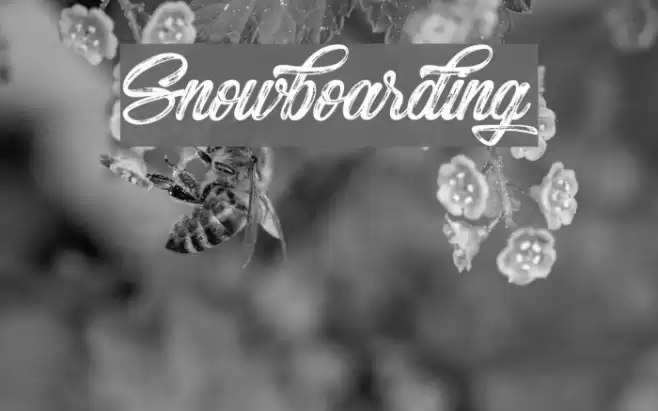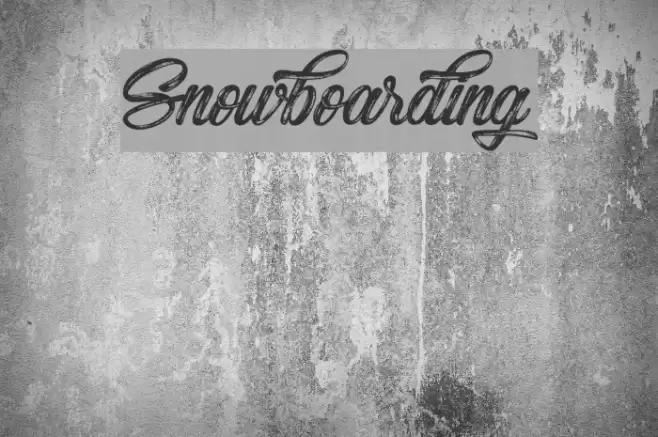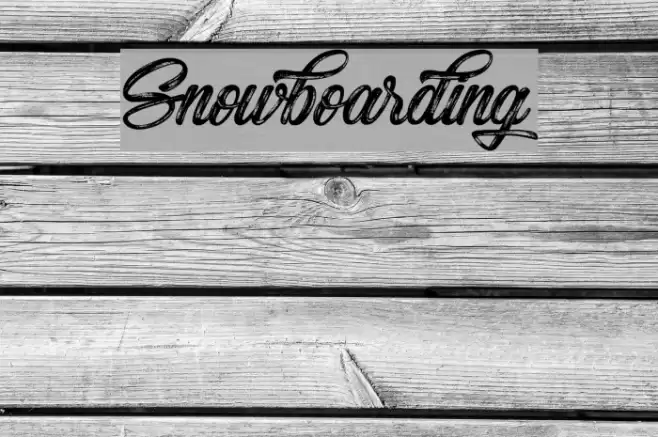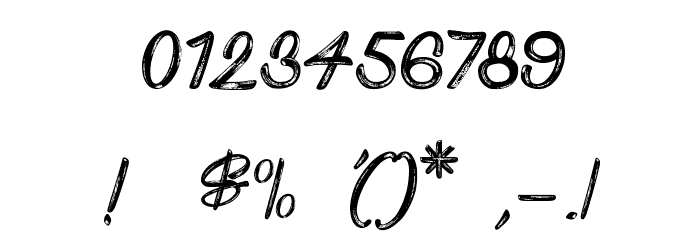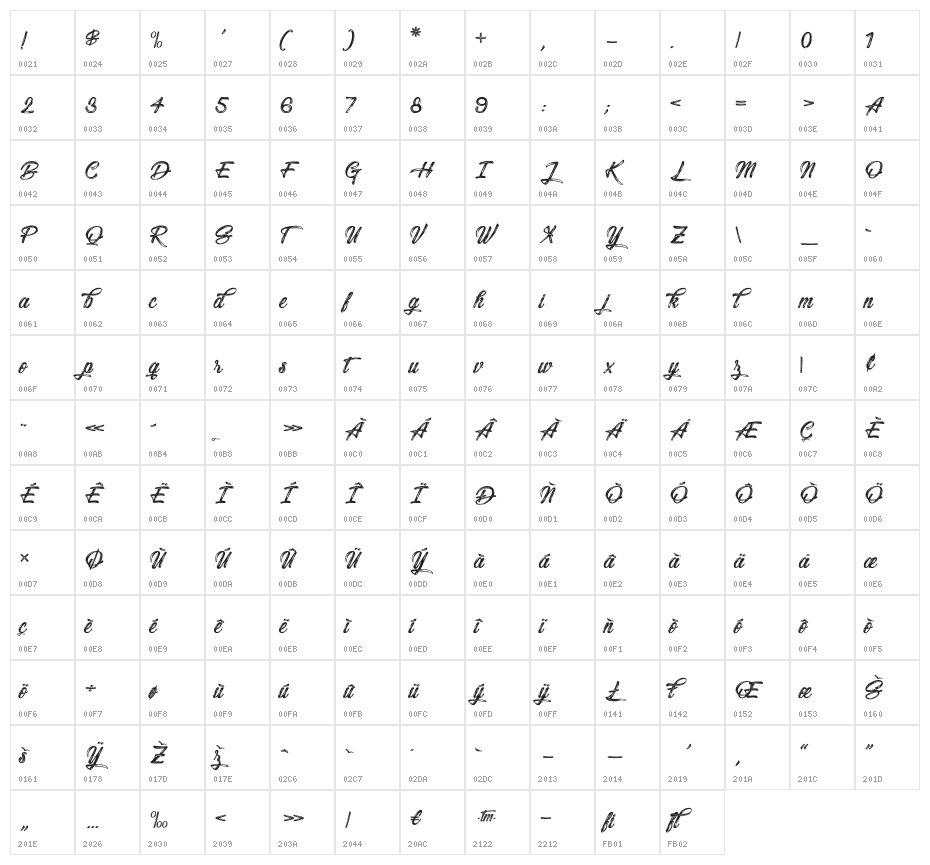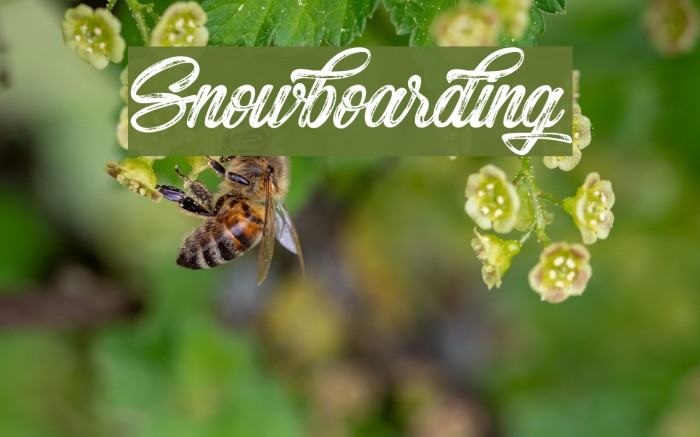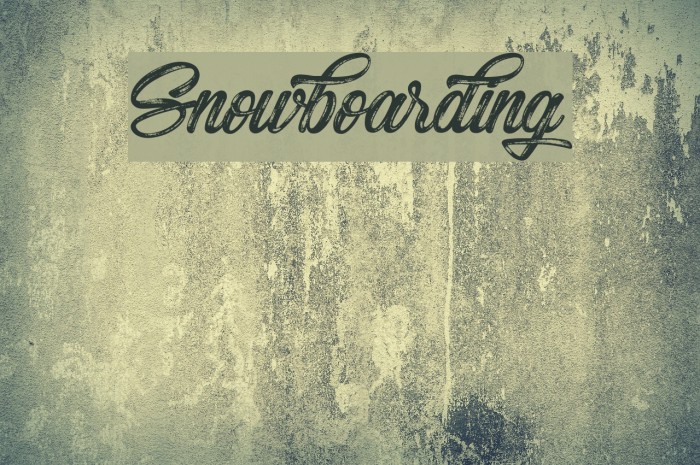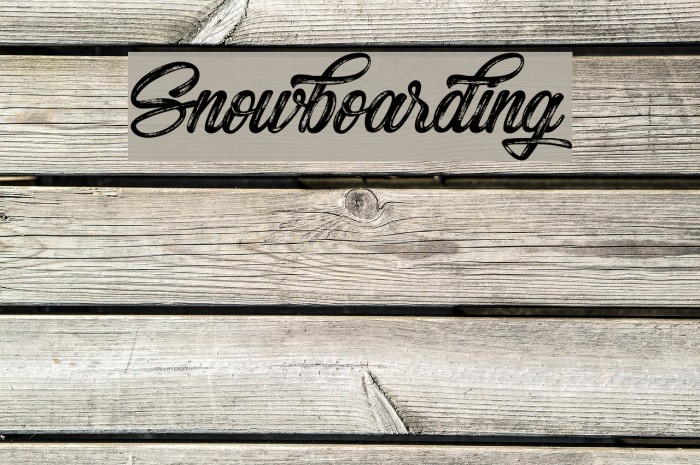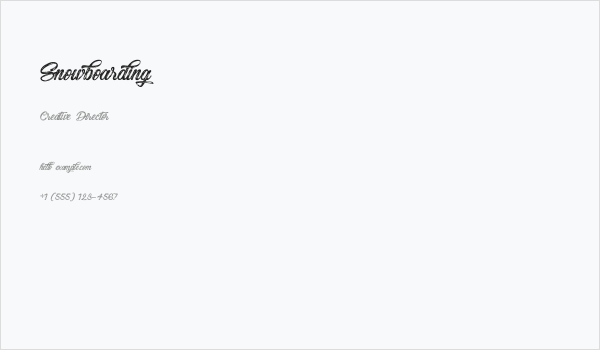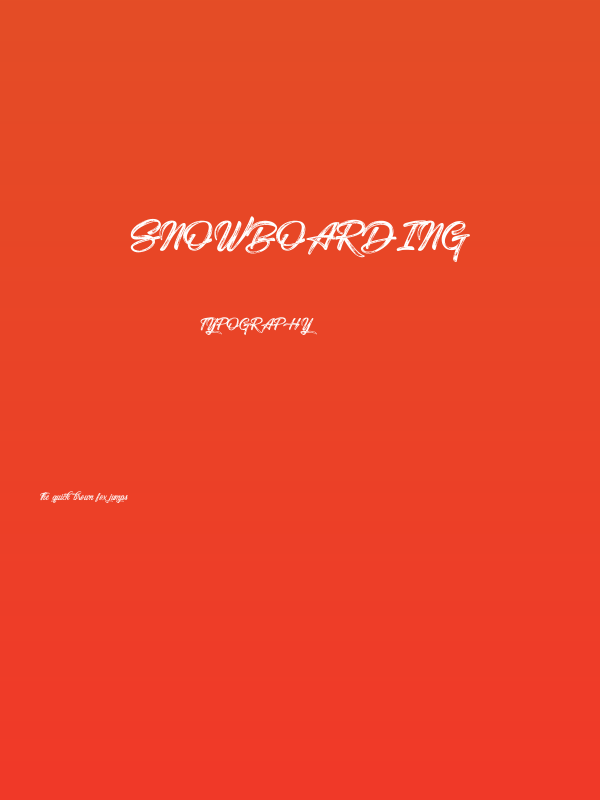
Snowboarding Font
Snowboarding Description
This font features a dynamic and energetic script style, characterized by its bold, flowing strokes and a sense of movement. The uppercase letters are particularly striking, with exaggerated curves and a sense of flair that suggests speed and agility. The lowercase letters maintain this fluidity, offering a cohesive look that is both stylish and legible. Numbers and special characters are designed with the same attention to detail, ensuring consistency across all elements. The overall appearance is modern and expressive, making it ideal for projects that require a touch of personality and impact.
A bold, dynamic script font with flowing strokes and modern flair from Uncategorized fonts.
- Proposed Projects: Ideal for branding, sports-related designs, posters, and dynamic advertising campaigns.